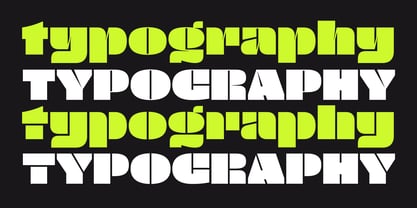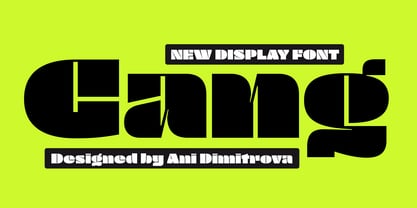
Gang
by Ani Dimitrova
Gang Font Family was designed by Ani Dimitrova and published by Ani Dimitrova. Gang contains 2 styles family package options.
Gang is a 2 - style display font family designed by Ani Dimitrova. Both weights contain a set of extended Latin and Cyrillic, as well as all sorts of open type features: standard ligatures, proportional figures, numerals, arrows, matching currency symbols, and fractions.
In both styles, the font is well-suited for large headlines, word emphasis, and different types of advertising.
The fonts' wide proportions make them a perfect choice for screen usage. This style palette offers a flexible range for display typography. The Gang type family is ideally suited for magazines, branding, posters, as well as web and screen design, and more.